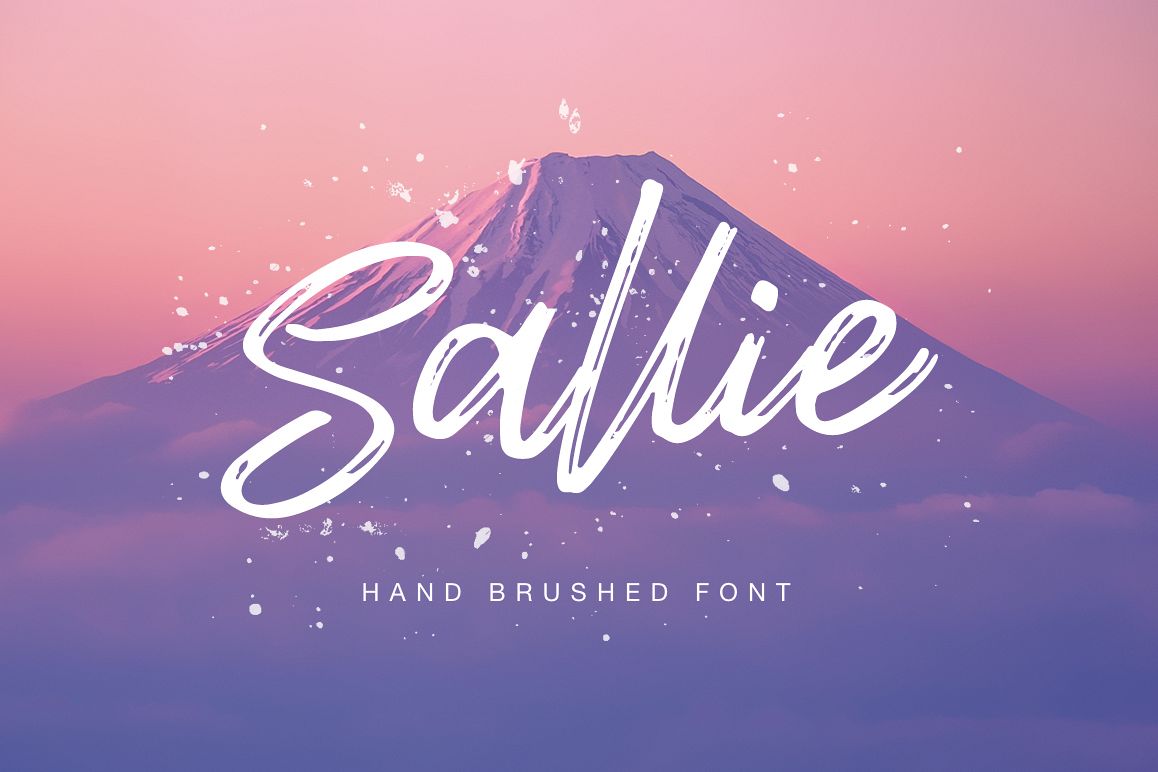
Sallie handwritten font
Sallie-Regular
It's a sweet hand lettered font. Also with this type, you will see a lot of interesting extras. This brush font is ideal for branding and decorate your any project.This font are perfect for wedding postcard. Or you can create perfect and unique design of your logo, blog, stationery, marketing, magazines and more :)